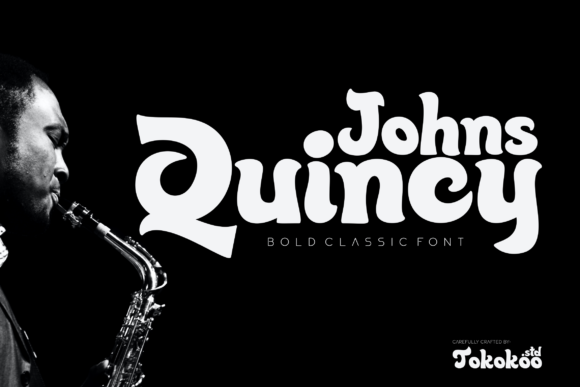
Immerse yourself in the realm of captivating aesthetics with Quincy Johns Font, a display typeface designed to ignite your branding endeavors. Each character exudes a timeless vintage charm, meticulously crafted to elevate your designs to unprecedented heights.
Tokokoo.studio, the visionary creators behind this masterpiece, have poured their hearts into imbuing Quincy Johns with a bold, thick letterform. This elegant font commands attention, ensuring that every word you compose will leave an indelible mark on your audience.
Whether you seek to craft logos that demand recognition, create packaging that captivates, or design web pages that inspire, Quincy Johns is your indispensable companion. Its versatility empowers you to effortlessly express your brand's unique personality and establish a powerful visual identity that transcends the ordinary.
Indulge in the allure of Quincy Johns and witness the extraordinary transformation it brings to your designs. From the moment you embrace this remarkable font, your creative vision will soar to new heights, leaving a lasting impression on the world.